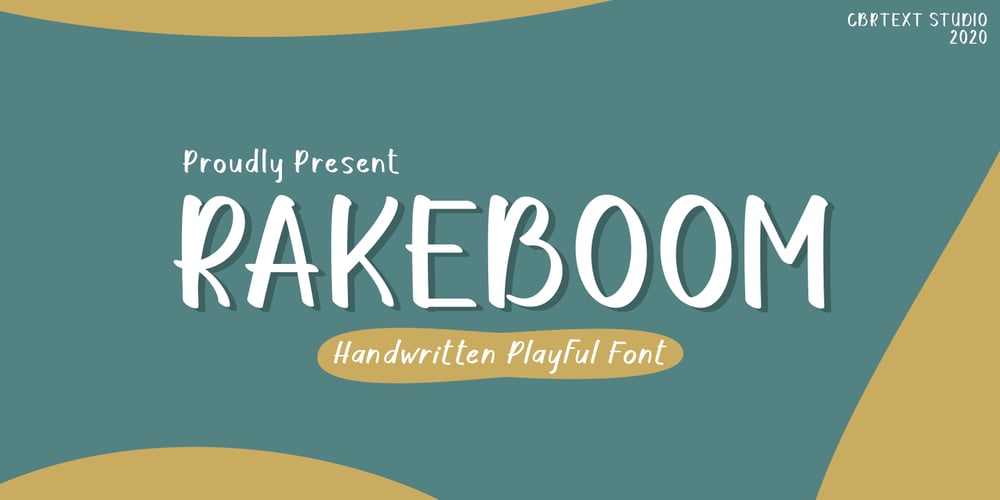
Rakeboom
Rakeboom font
Rakeboom Font Family was designed by Muhammad Khoirul Amal and published by CBRTEXT Studio. Rakeboom contains 2 styles and family package options. Rakeboom is a cute handwritten font. This font is equipped with uppercase, lowercase, symbols, and punctuation. This font is suitable for branding purposes such as logos, book covers, quotes, crafts, magazines, advertisements, and others. This font also supports multi-languages.